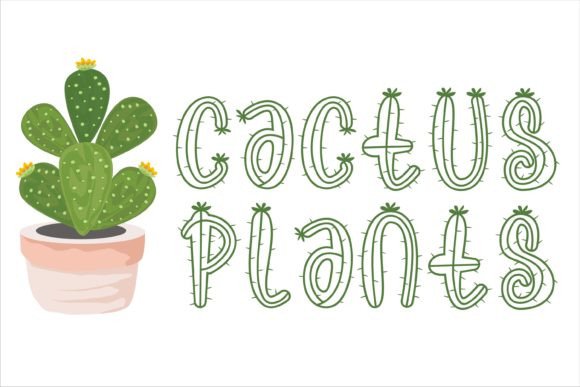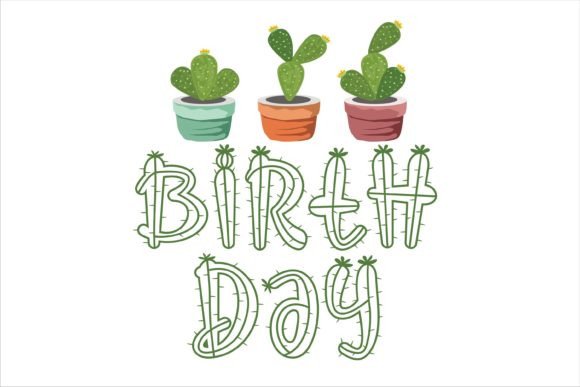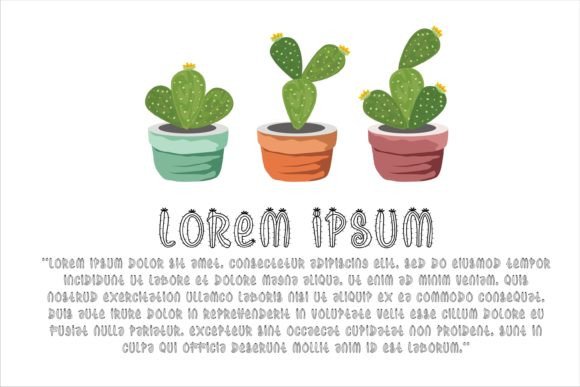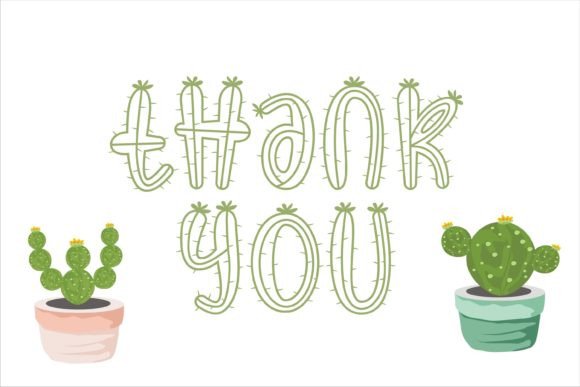
Cactus Plants Font: A Prickly yet Charming Typeface for Designers
Are you a designer or crafter looking for a unique and eye-catching font to add some personality to your projects? Look no further than the Cactus Plants Font! This decorative typeface is inspired by the iconic cactus plant and is perfect for cartoon-themed designs, illustrations, designs for children, and environmental themes.
What is Cactus Plants Font?
Cactus Plants Font is a carefully crafted typeface that features cactus plant-themed characters. The font is designed to be visually striking, with bold lines, playful curves, and a dash of quirkiness. Each letter is meticulously designed to resemble a cactus plant, complete with spines, flowers, and a charming, endearing quality.
Key Features of Cactus Plants Font
- Unique and eye-catching design: The Cactus Plants Font is unlike any other font you’ve seen before. Its distinctive design makes it perfect for projects that require a bold and attention-grabbing look.
- Cartoon-themed: The font’s playful and whimsical design makes it ideal for cartoon-themed designs, illustrations, and animations.
- Environmental themes: The cactus plant theme also makes the font suitable for environmental themes, such as conservation, sustainability, and eco-friendliness.
- Children’s designs: The font’s cute and playful design makes it perfect for designs aimed at children, such as children’s books, educational materials, and kids’ websites.
- High-quality and versatile: The Cactus Plants Font is a high-quality font that can be used for a wide range of design projects, from digital designs to print materials.
Design Ideas Using Cactus Plants Font
The Cactus Plants Font is a versatile typeface that can be used for a wide range of design projects. Here are some design ideas to get you started:
- Cartoon characters: Create cute and playful cartoon characters using the Cactus Plants Font. You can use the font to create characters for animations, comics, or children’s books.
- Environmental posters: Use the Cactus Plants Font to create eye-catching posters and flyers for environmental campaigns, such as conservation, sustainability, and eco-friendliness.
- Children’s book covers: Design engaging and colorful book covers for children’s books using the Cactus Plants Font.
- Illustrations: Use the font to create illustrations for children’s books, magazines, or websites.
Tips and Tricks for Using Cactus Plants Font
Here are some tips and tricks to help you get the most out of the Cactus Plants Font:
- Experiment with colors: The Cactus Plants Font looks great in bold, bright colors. Experiment with different color combinations to create unique and eye-catching designs.
- Mix and match: Combine the Cactus Plants Font with other fonts to create interesting and dynamic typography.
- Pay attention to spacing: Make sure to adjust the spacing between letters and words to create a clean and balanced design.
The Cactus Plants Font is a unique and charming typeface that is perfect for designers and crafters looking to add some personality to their projects. With its bold and playful design, this font is ideal for cartoon-themed designs, illustrations, designs for children, and environmental themes. So why not give it a try and see how you can use the Cactus Plants Font to create engaging and eye-catching designs?